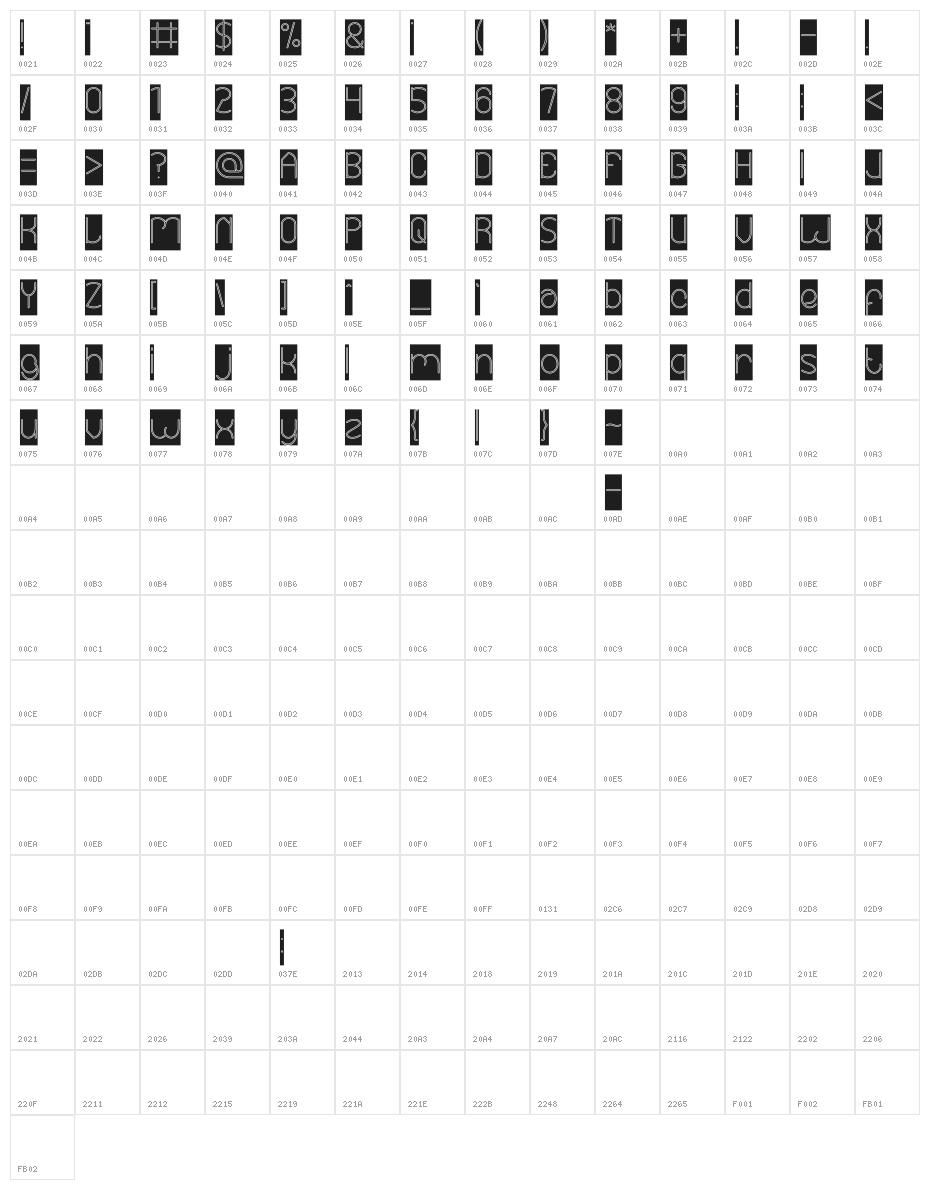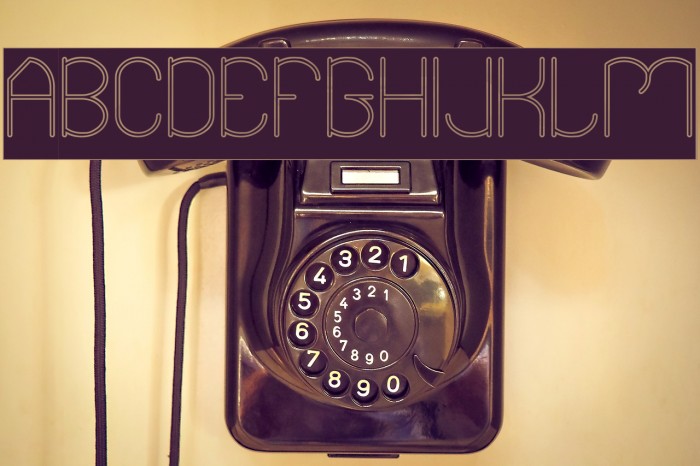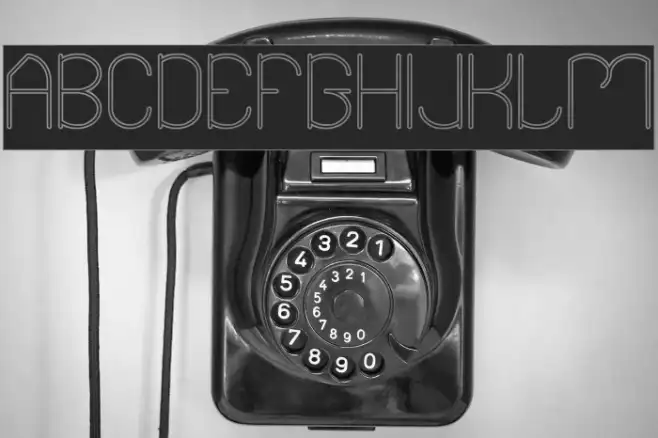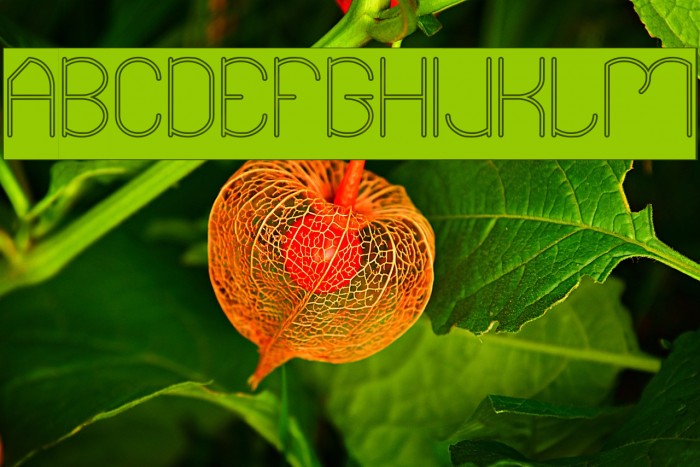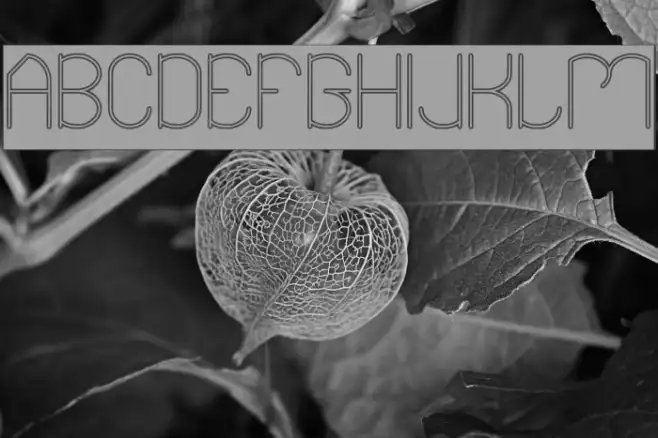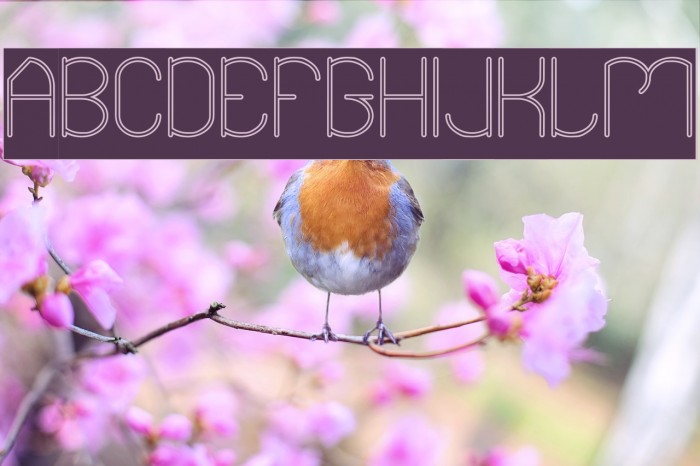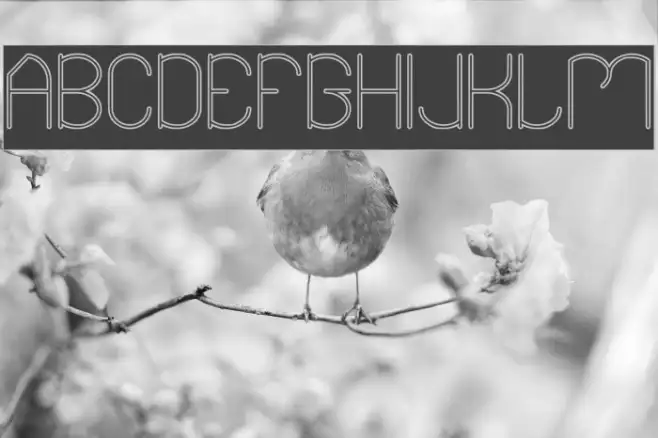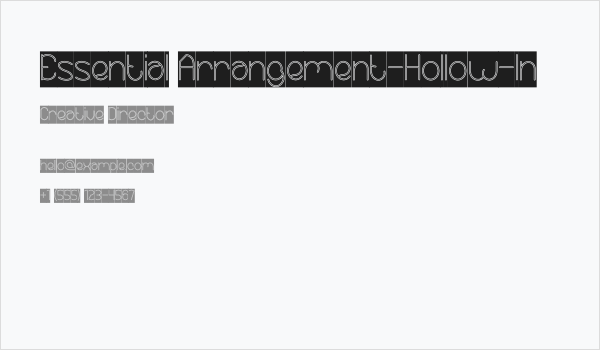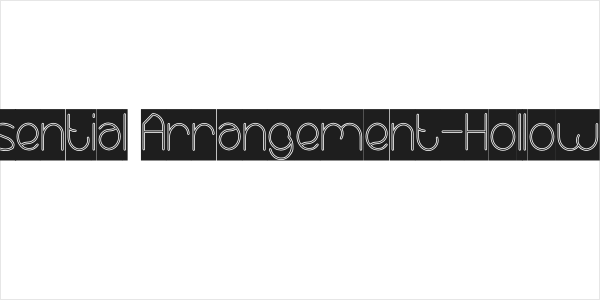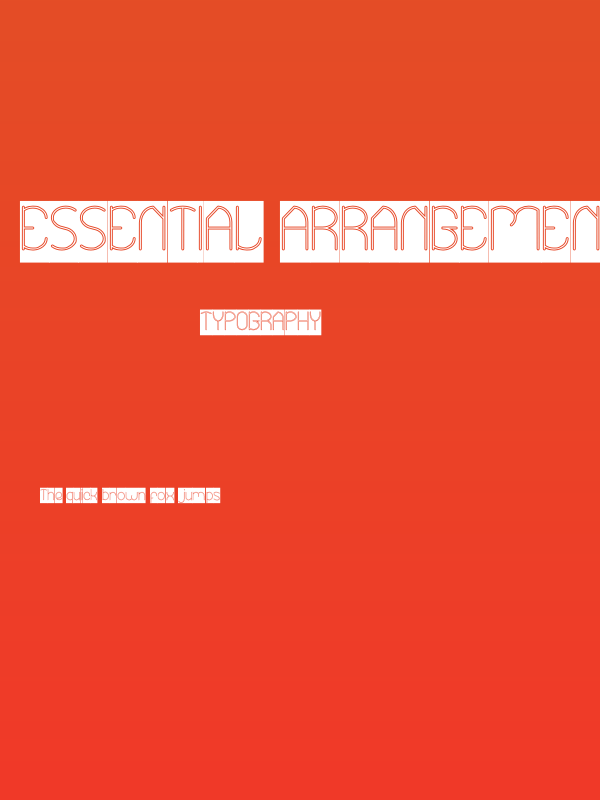
Essential Arrangement-Hollow-In Font
Essential Arrangement-Hollow-In Description
This font features a hollow, geometric design with clean lines and a modern aesthetic. Each character is crafted with a consistent stroke width, creating a uniform and cohesive look. The uppercase and lowercase letters maintain a similar structure, enhancing readability while adding a unique flair. The numerals and special characters are designed to match the overall style, making this font versatile for various applications. Its minimalist approach and open forms give it a contemporary feel, suitable for projects that require a sleek and stylish appearance.
| Proposed Projects | Ideal for branding, logos, posters, and digital media where a modern and clean look is desired. |